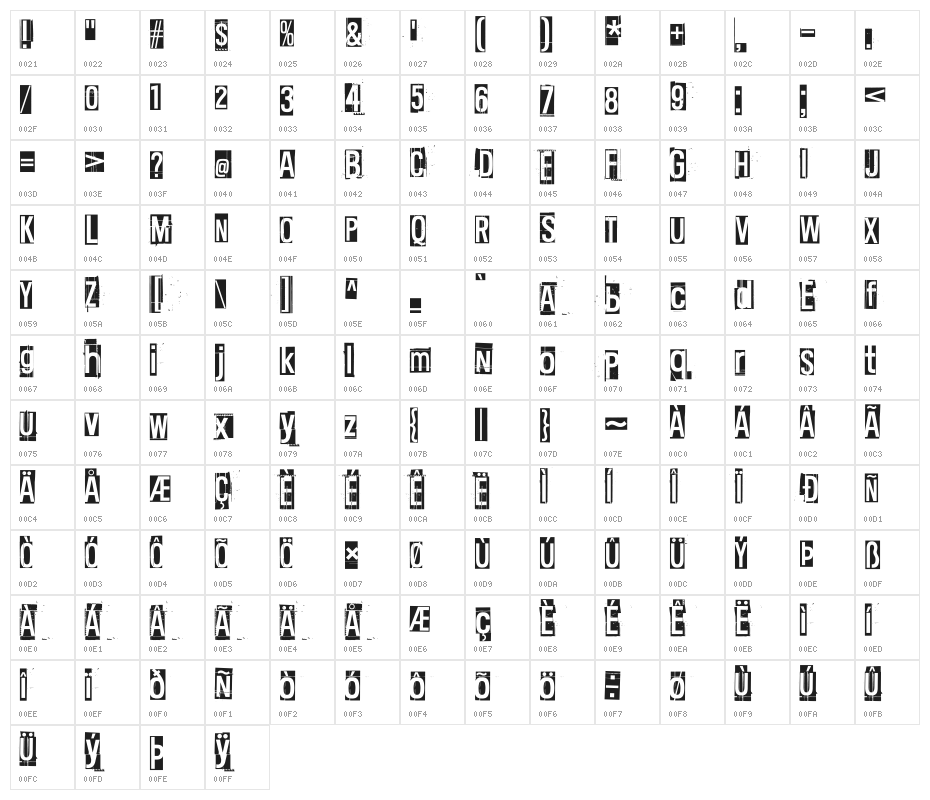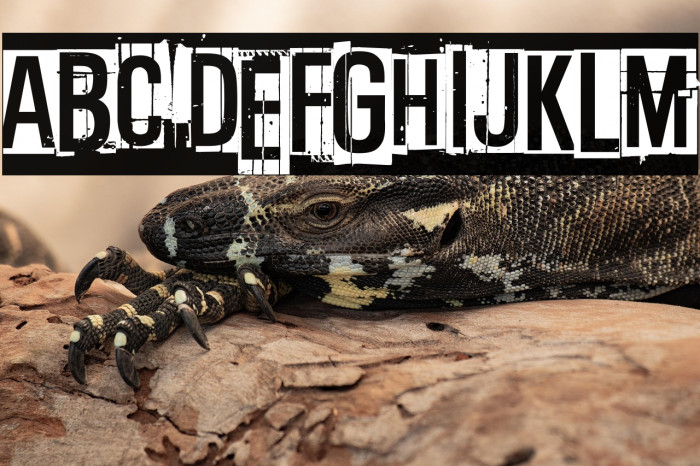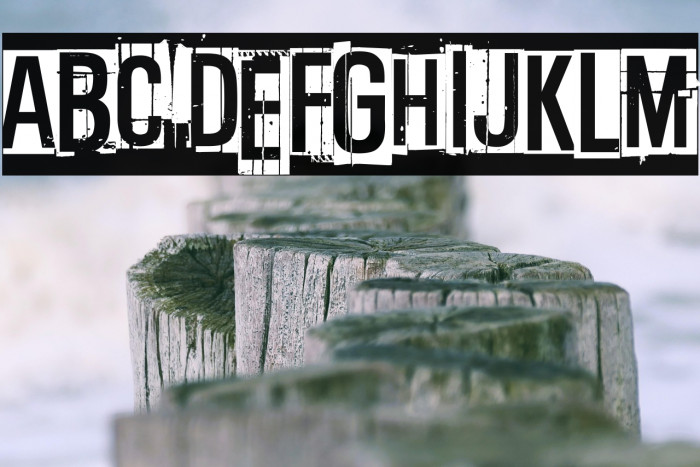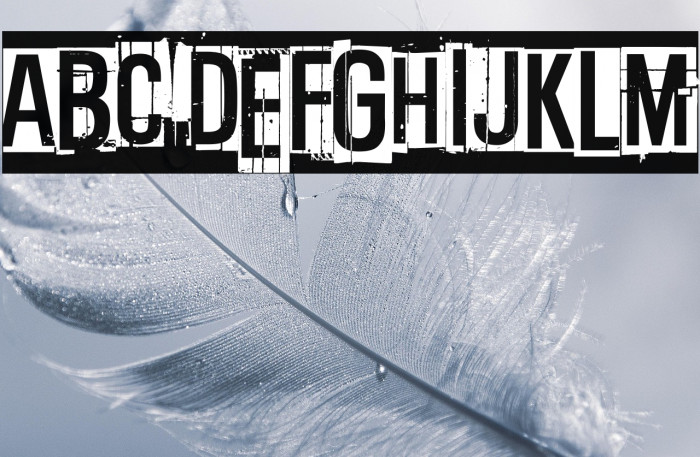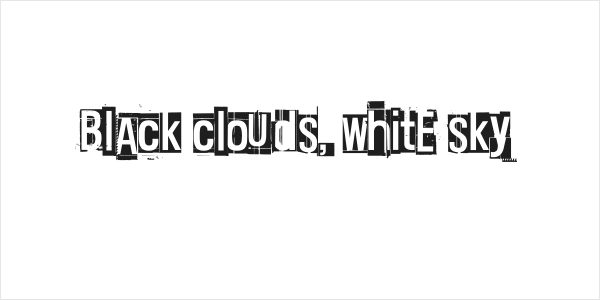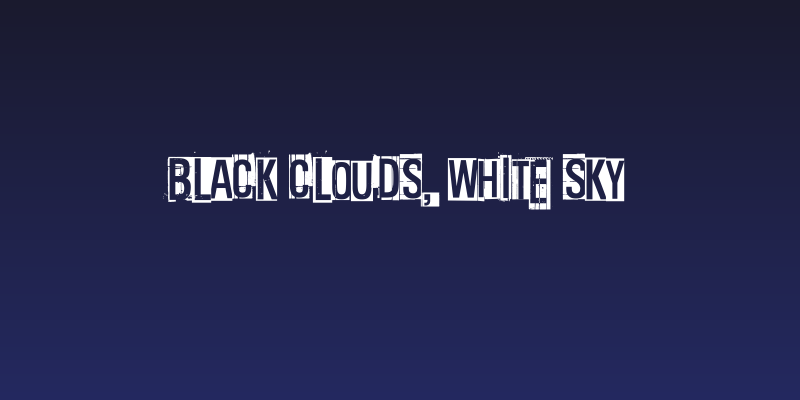
Black clouds, white sky Font
Black clouds, white sky Description
This font features a bold, distressed style with a high-contrast design, giving it a gritty, urban feel. The characters are blocky and robust, with a slightly uneven texture that adds a sense of movement and energy. The uppercase and lowercase letters maintain a consistent width, while the numbers and special characters follow the same rugged aesthetic. The overall appearance is striking and impactful, making it ideal for projects that require a bold statement. The distressed effect adds a layer of complexity and interest, making it suitable for creative and edgy designs.
| Overall Style | Urban, Edgy, Distressed |
| Proposed Projects | Ideal for posters, album covers, streetwear branding, and edgy graphic design projects. |